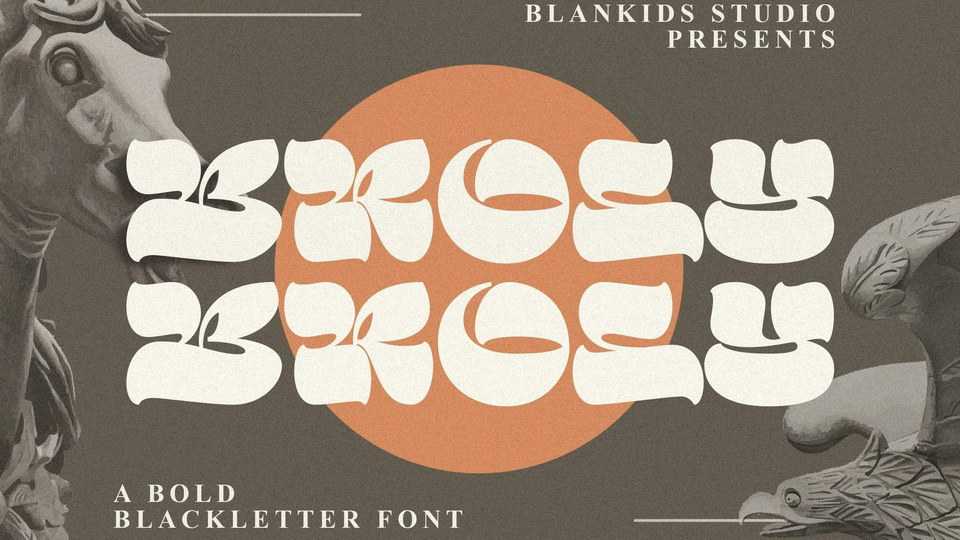
Download Broly font, a bold calligraphy typeface inspired by blackletter style typography. Broly font is perfect for a design that makes it more attractive and playful.
Designer: Blankids Studio